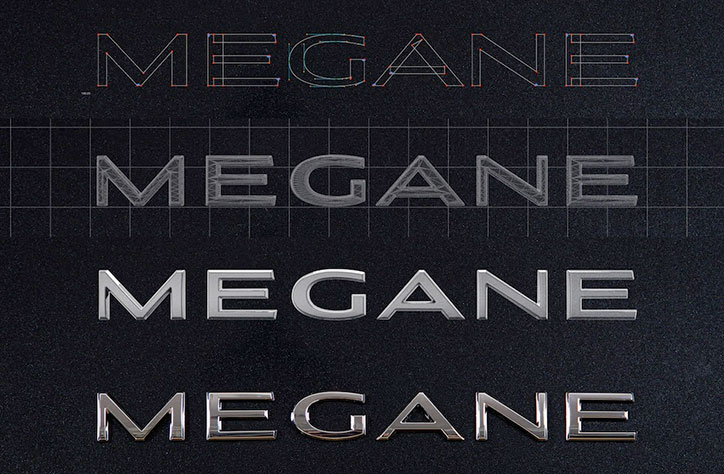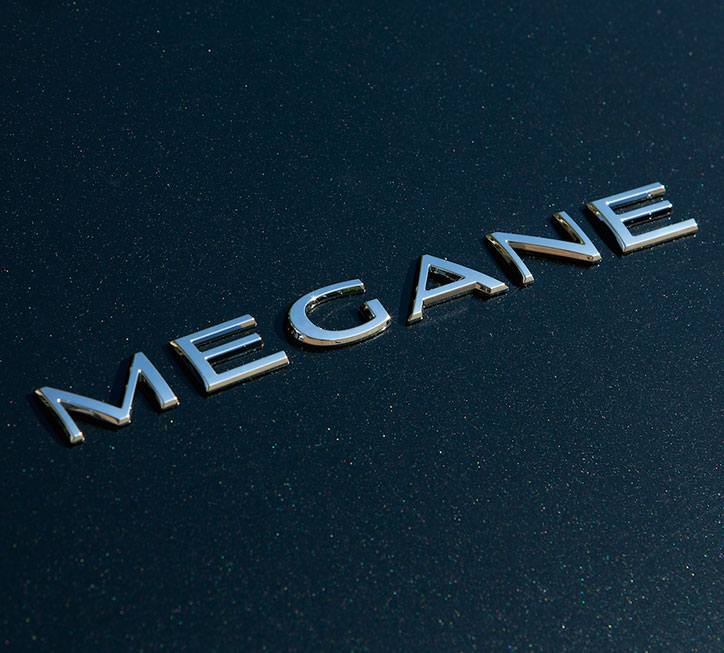
Production Type designs new suite of typefaces for Renault
Parisian type foundry Production Type has designed a new suite of typefaces for Renault to be used across the brand’s cars’ interior and exterior badges.
The type family contains various widths, weights, and slopes, aiming to “cover the spectrum of visual expressions in the Renault line, from hulking, muscular trucks to swift, nimble cabriolets,” according to Production Type.
“Chrome letters have their own peculiar way of behaving, and must be treated as such,” says Jean-Baptiste Levée, Production Type president and lead designer on the project. “Receiving and reflecting light elegantly is one of the key roles a chrome letter is expected to play: their shapes need to interact closely with the environment, their lines and curves must perform seamlessly with sun rays. Among the multiplicity of parameters, our team sought the most down-to-earth (matching a minimum typeface weight to the viscosity of a glue) and the most person-oriented (thickening and rounding small stems and spikes which can be hazardous in case of an impact).”
Production Type will continue to work with the in-house team at Renault to roll out the new designs.